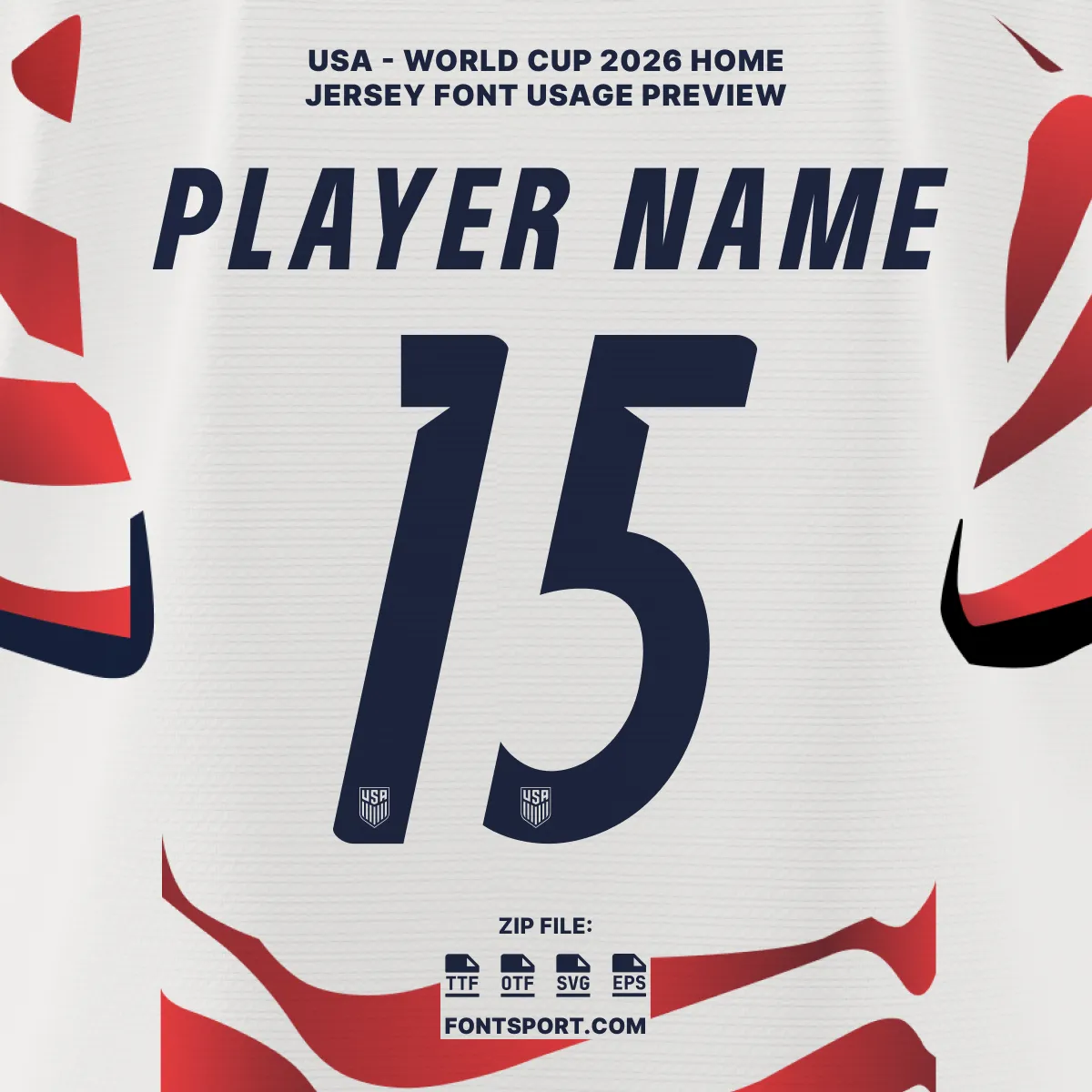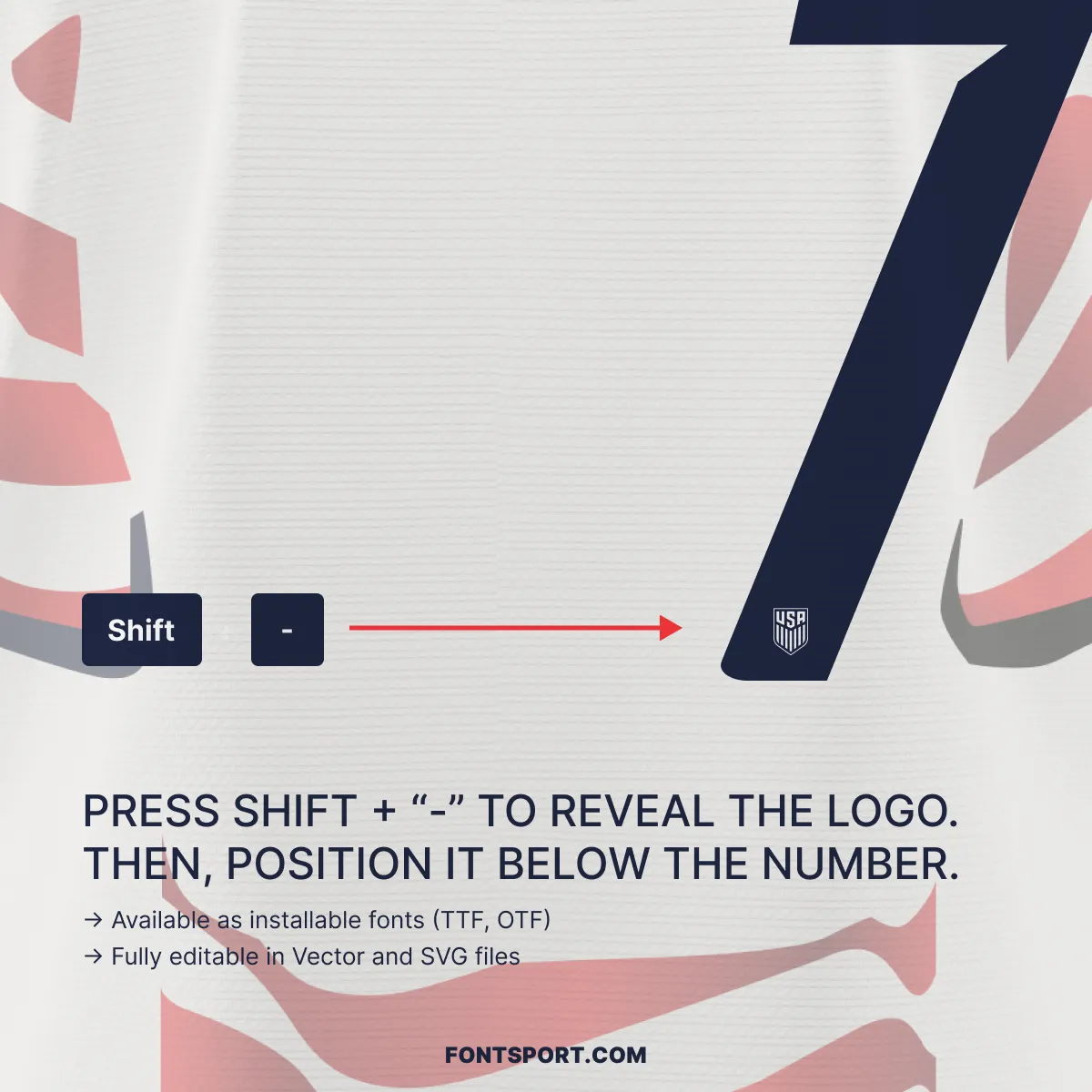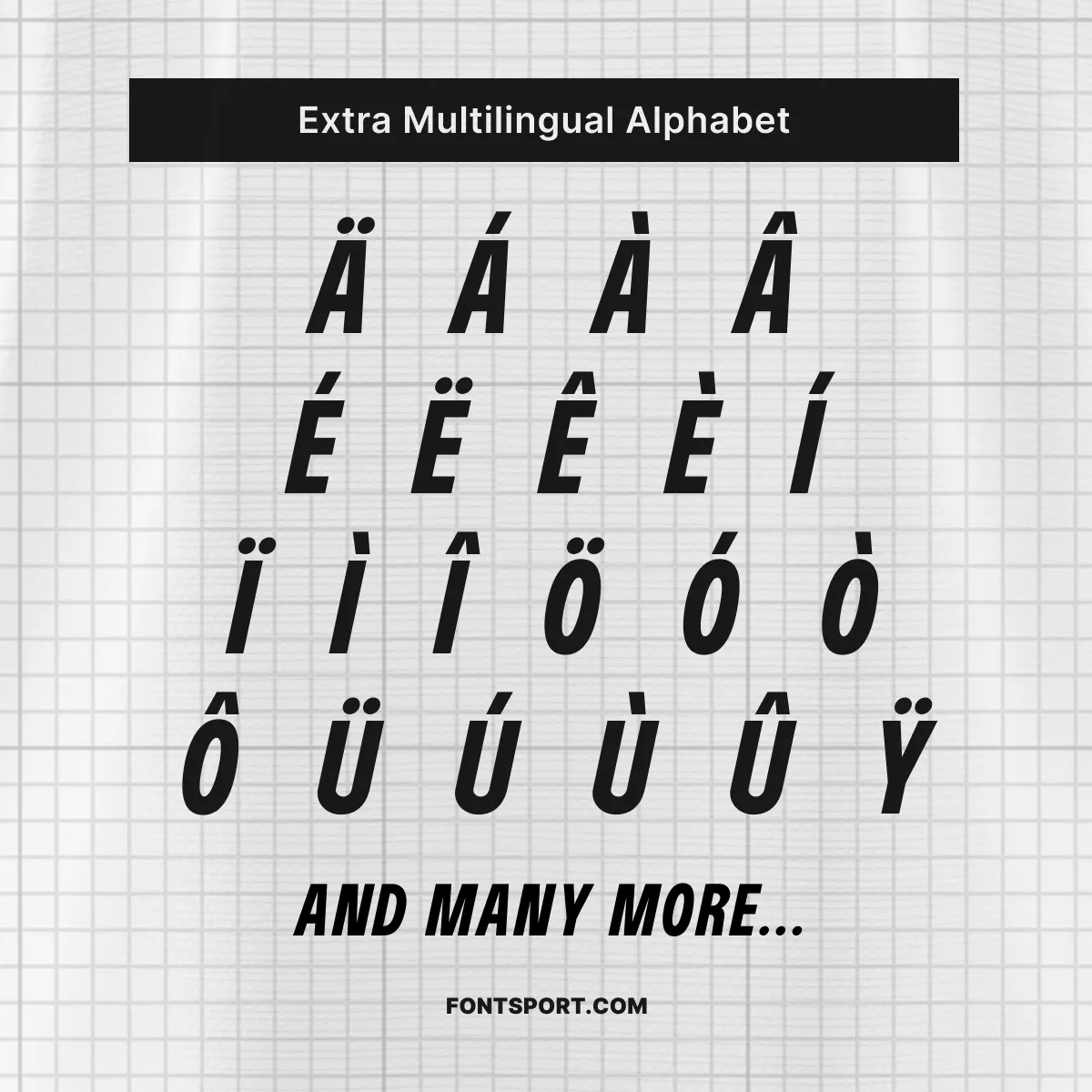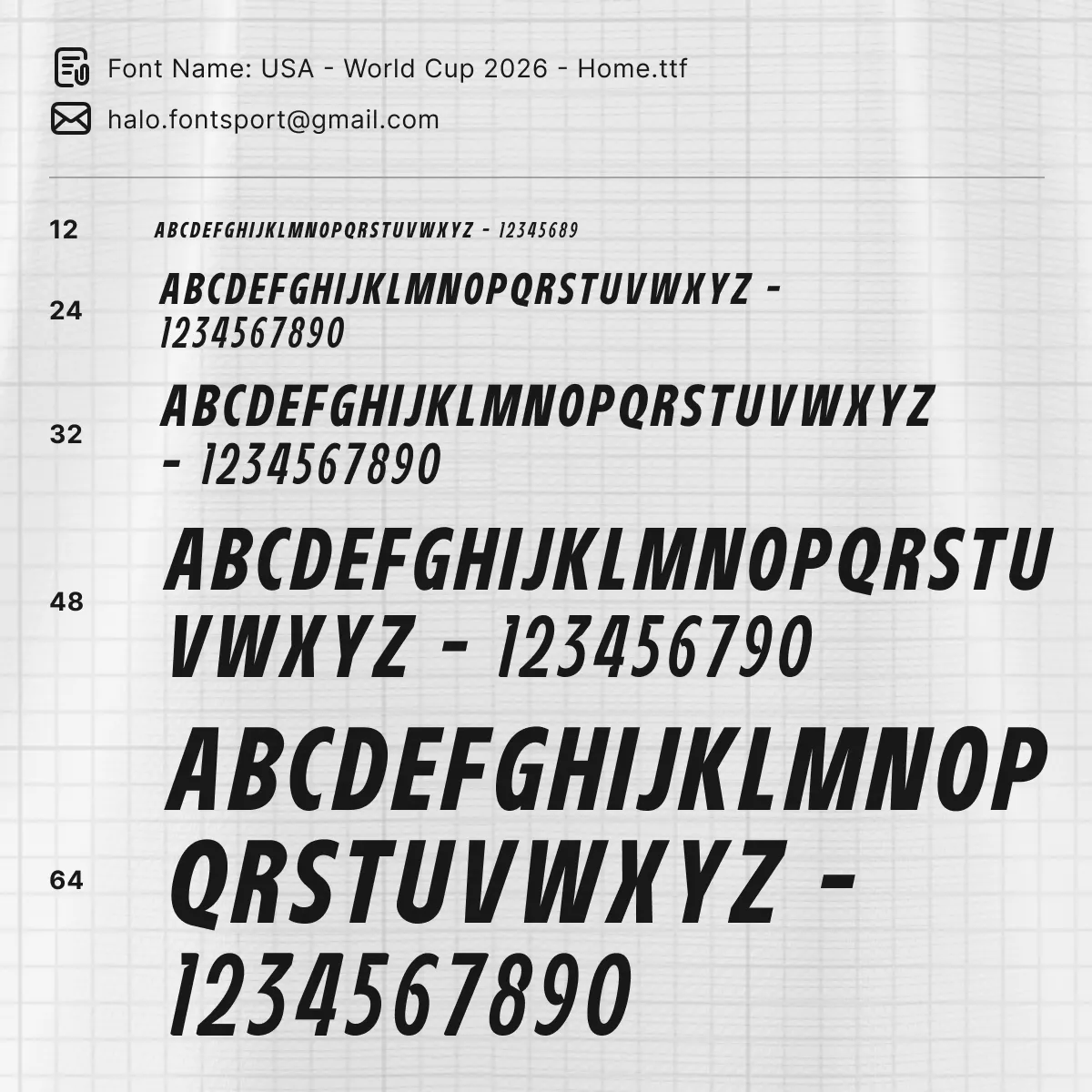
USA World Cup 2026 Font Kit – Home
Some moments in sport define a generation. The 2026 FIFA World Cup is one of them. The United States, Canada, and Mexico co-host the tournament — and the USMNT plays in front of a home crowd for the first time in over 30 years. The USA World Cup 2026 Font Kit – Home faithfully recreates the Stripes typeface worn on the USMNT home jersey. Every character matches the exact proportions, weight, and italic angle of the lettering on the back of each shirt.
Furthermore, this font is not a generic template. Nike and U.S. Soccer developed the “Stars & Stripes” visual identity together. The home jersey features wavy red-and-white stripes on a creamy off-white “Sail” base. It directly references the iconic 1994 World Cup shirt worn the last time the U.S. hosted. The typography matches that ambition: bold, condensed, and unmistakably American.
Key Visual Identity of the Font
Typography Style
The Stripes typeface uses a tightly condensed italic structure with serious on-pitch authority. Each letterform leans forward with purpose. The strokes are weighted heavily, and the terminals cut sharp. Additionally, the italic angle gives the full character set a kinetic energy. This mirrors the movement in the jersey’s wavy stripe pattern. As a result, the typography and the shirt design feel like two parts of the same statement.
Number Design
The numerals are the centrepiece of this kit. They sit deep and condensed, with a forward-leaning slant that reads like acceleration. Each digit includes an embedded USA Soccer crest glyph. To reveal it, press Shift + “-“. Then position it beneath the number for a complete, shirt-accurate presentation.
• ✅ Full uppercase A–Z & numbers 0–9 in the USA 2026 Home Stripes style
• ✅ Extended multilingual Latin alphabet with diacritics – Ä, Á, À, Â, É, Ë, Ê, È, Í, Ï, Ö, Ó, Ü, Ú, Ÿ, and many more
• 🌎 Multilingual diacritic support covers player names from all 32 World Cup nations
A Note About This Font Kit
The USA World Cup 2026 Font Kit – Home is an independent typeface created by the design team at Fontsport. It is not produced or endorsed by U.S. Soccer, Nike, or FIFA — but every character has been carefully studied and reconstructed to faithfully replicate the proportions, stroke weight, italic angle, and spacing of the Stripes lettering seen on the USMNT’s 2026 home shirt.
USA World Cup 2026 font kit home – full alphabet A–Z and numbers 0–9 preview on USMNT jersey